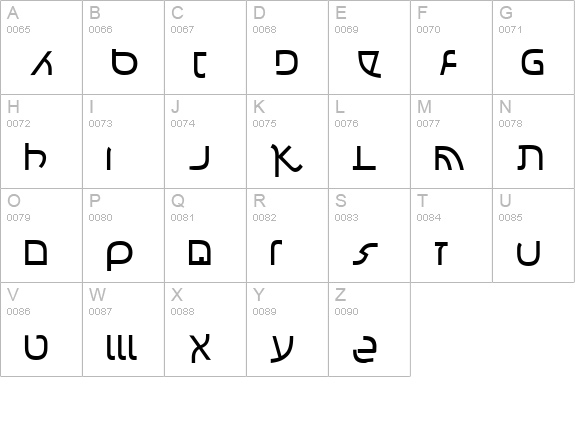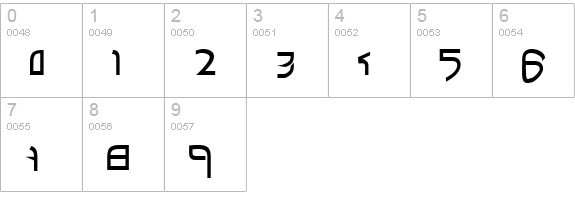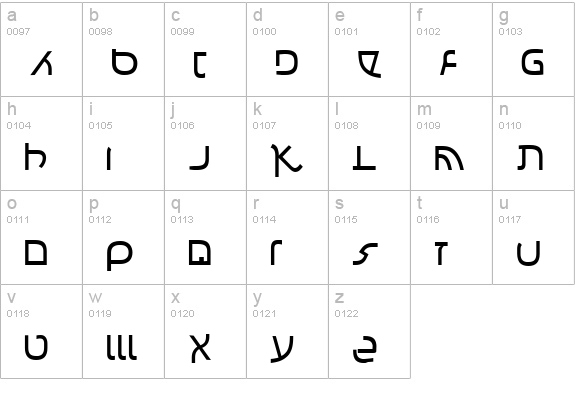
Confusion Font Details
Confusion font is a captivating and versatile typeface that will add a touch of intrigue to your designs. With its unique and intricate letterforms, Confusion font is perfect for projects that require a bold and contemporary look. Whether you're designing a poster, logo, or website, this font will make your text stand out and leave a lasting impression. Best of all, Confusion font is completely free to download at FontsMarket.com. You can easily access this stylish and eye-catching font to enhance your creative projects without any cost. Embrace the confusion and let this font bring a sense of mystery and excitement to your designs. Download Confusion font today and unleash your creativity!